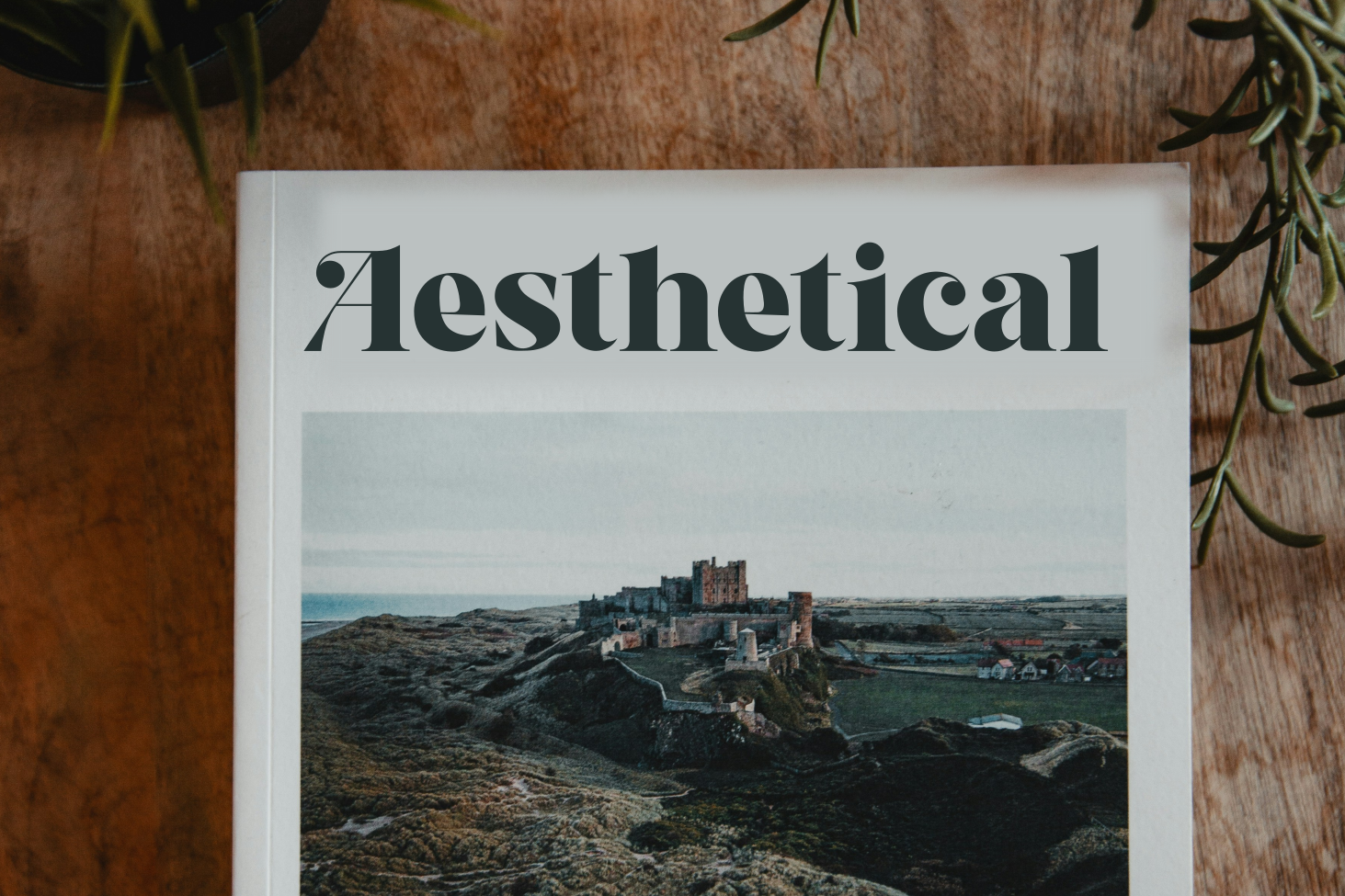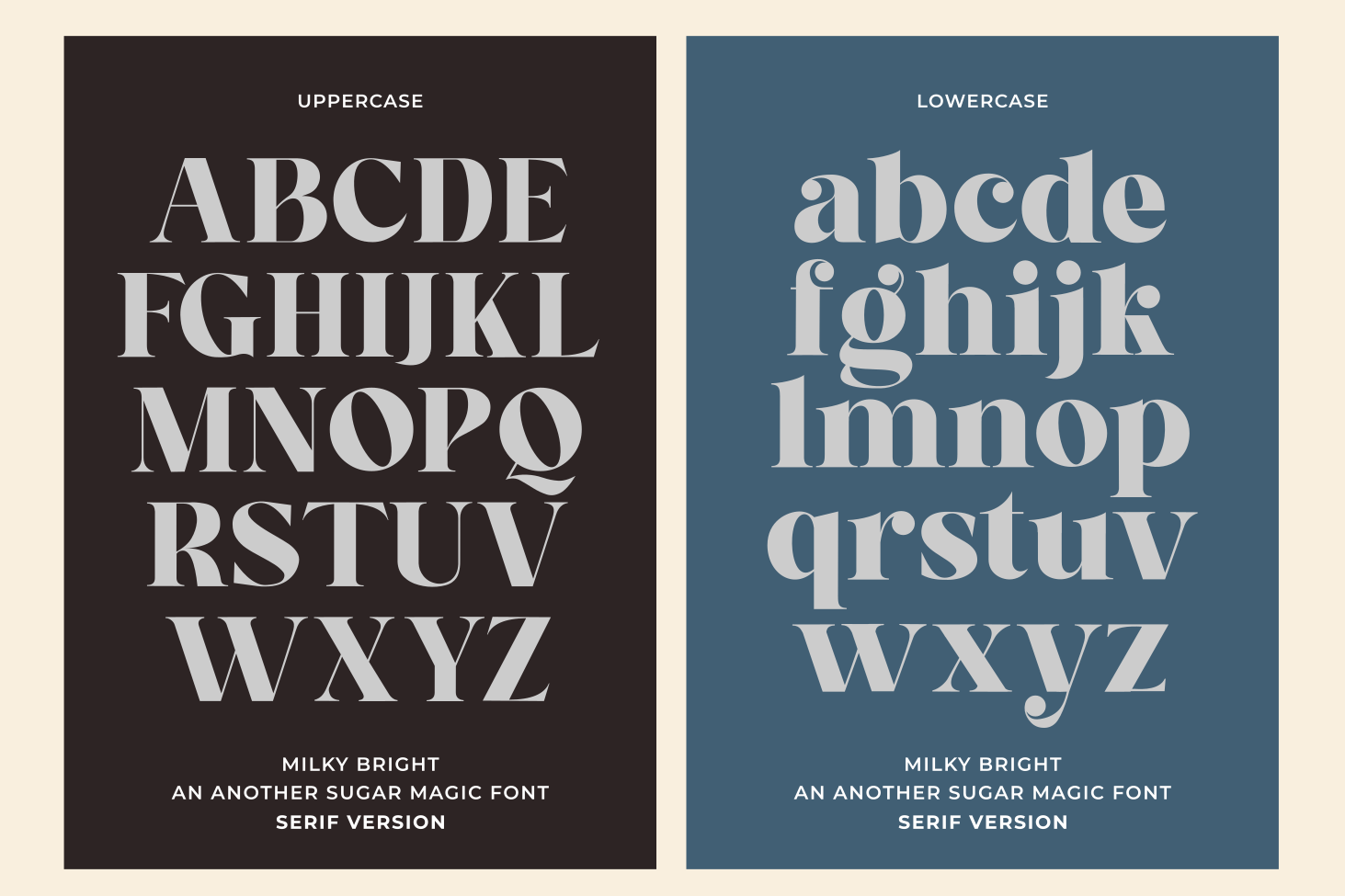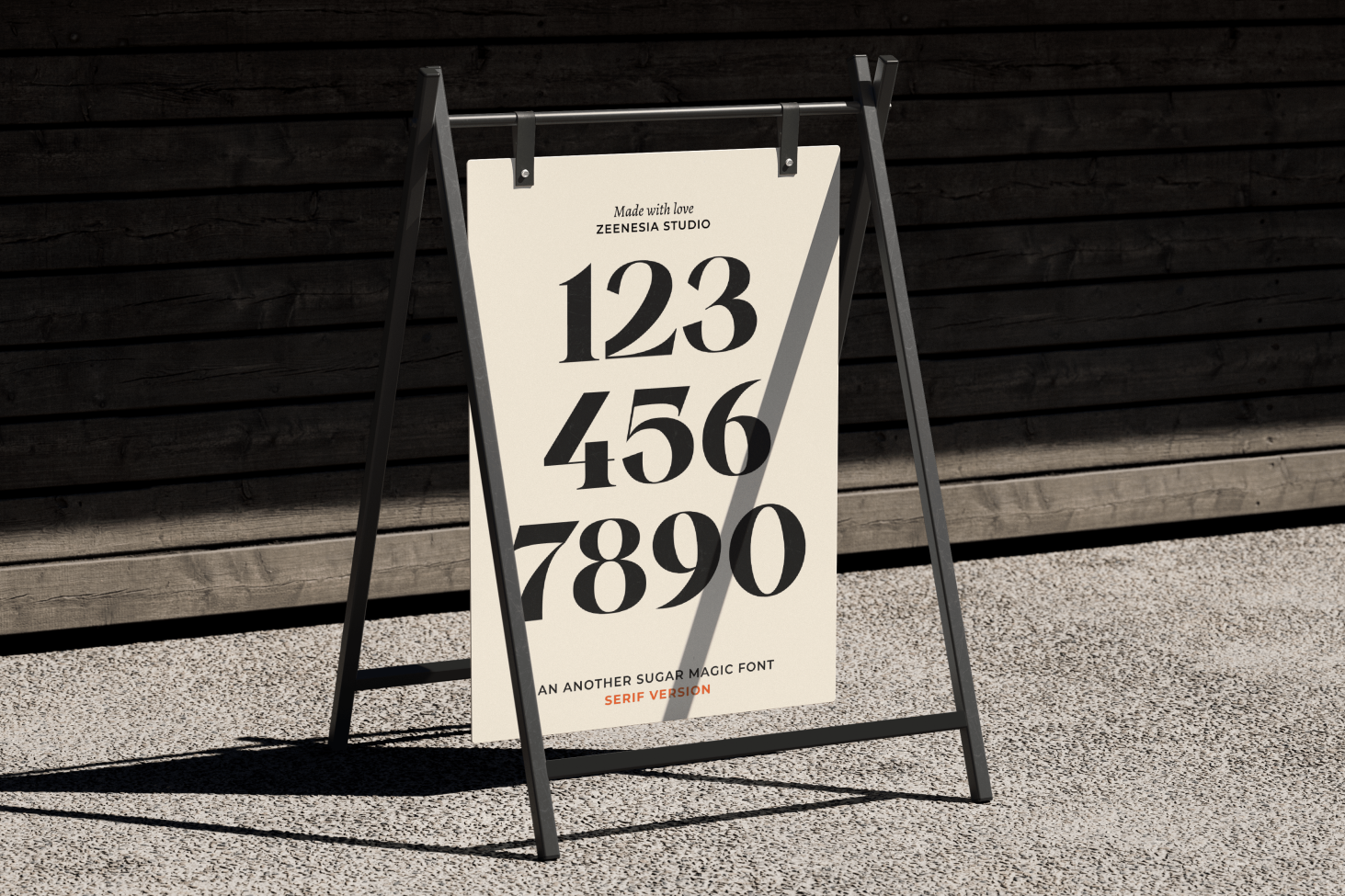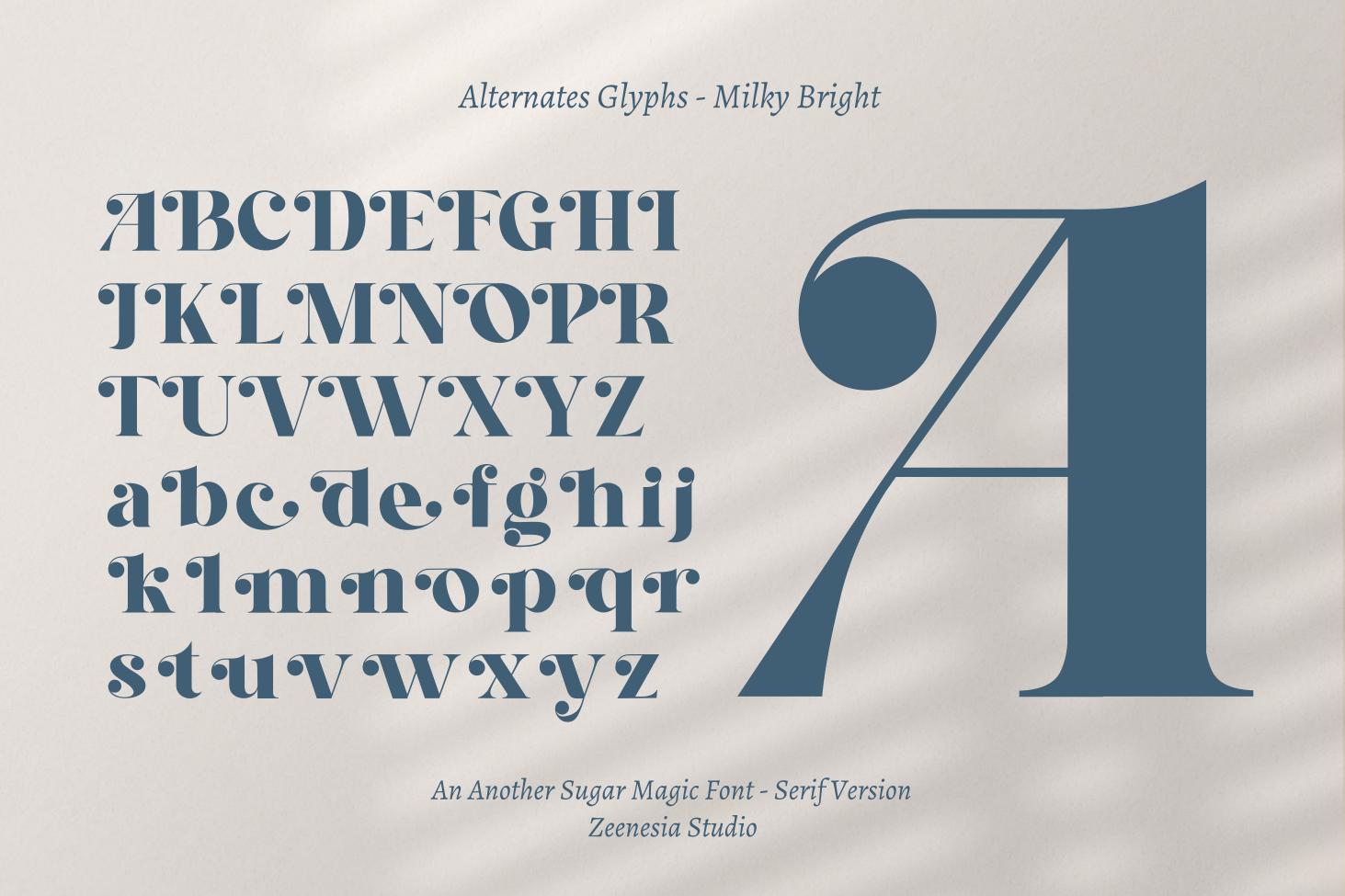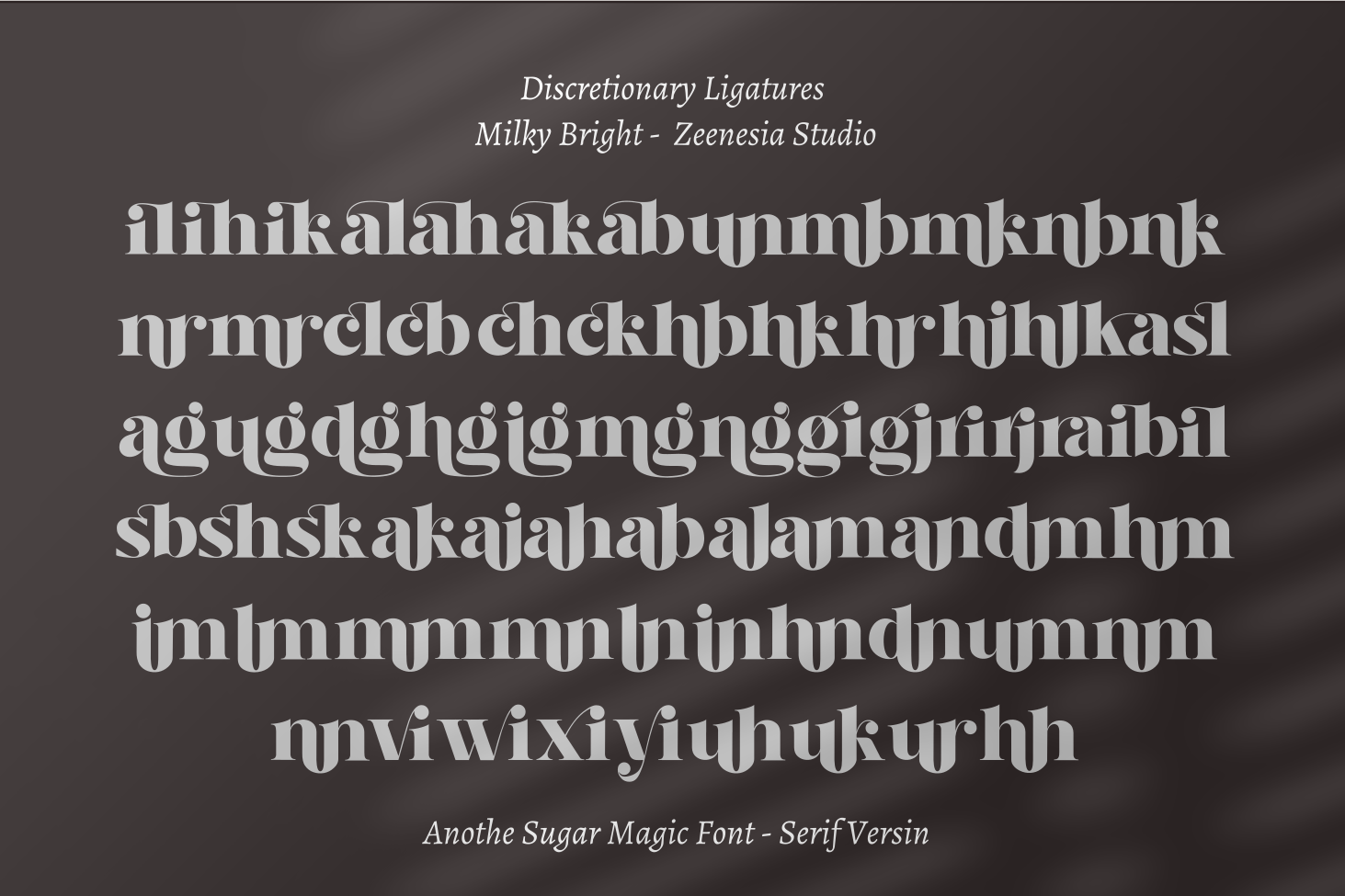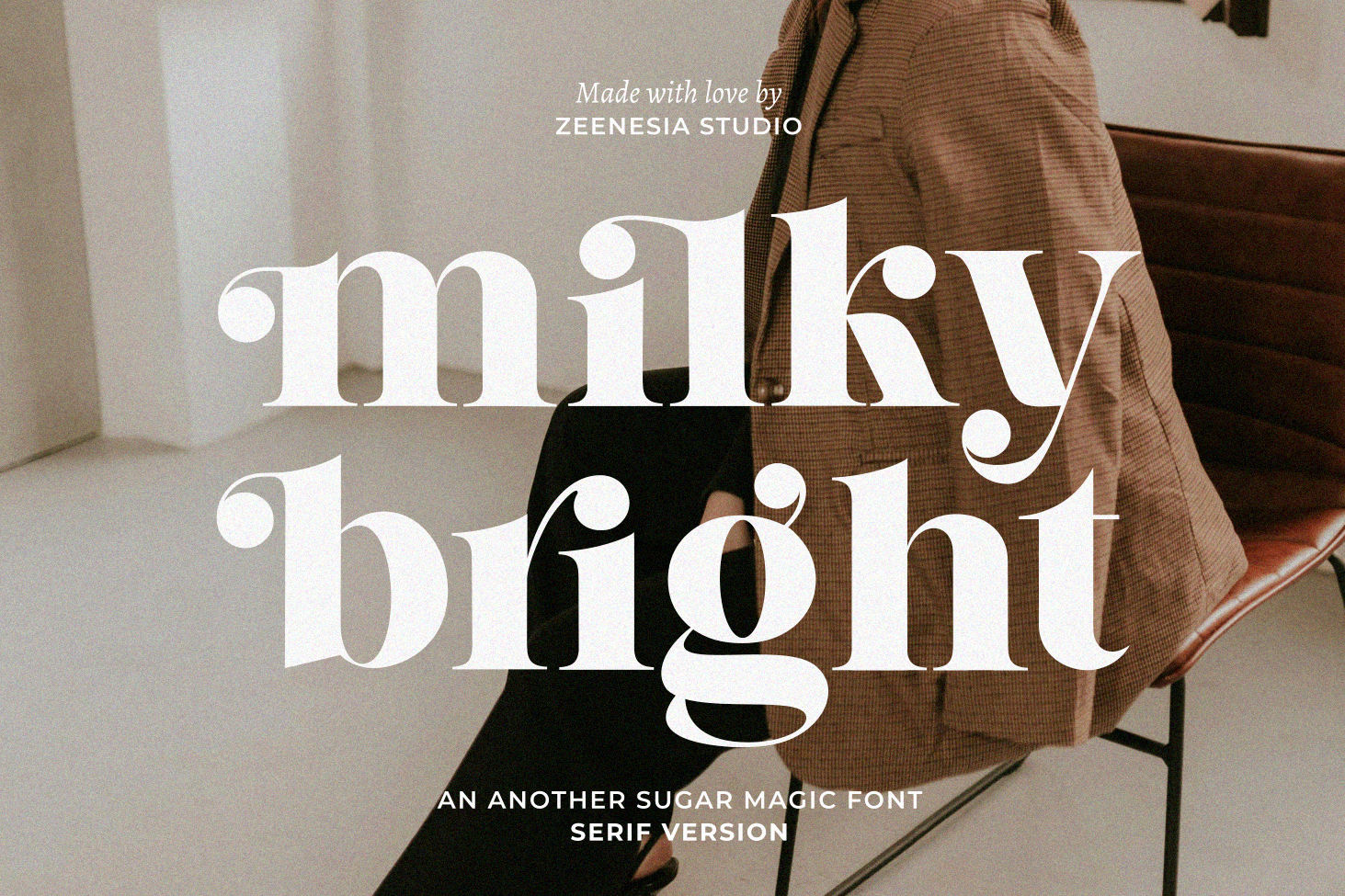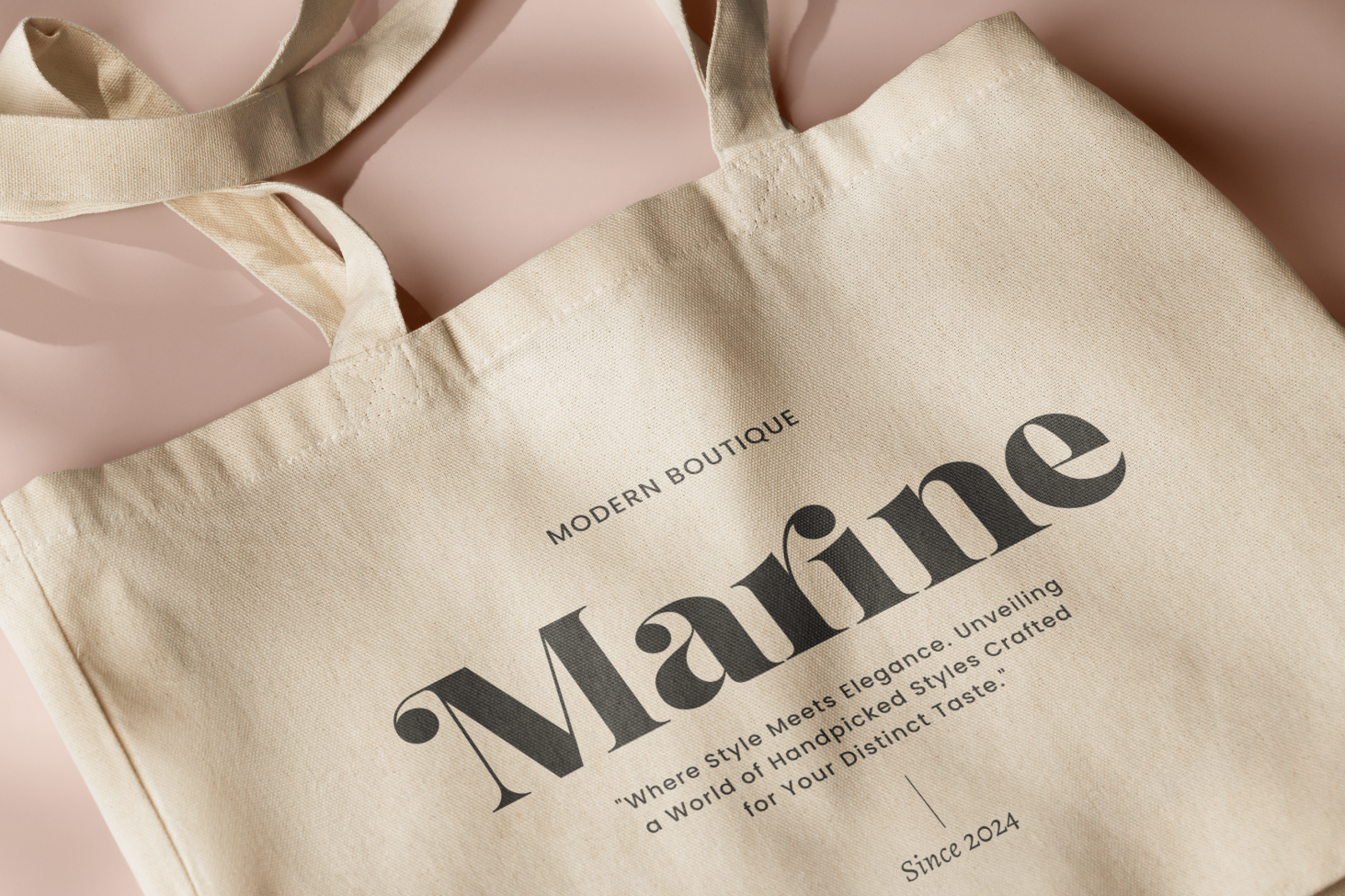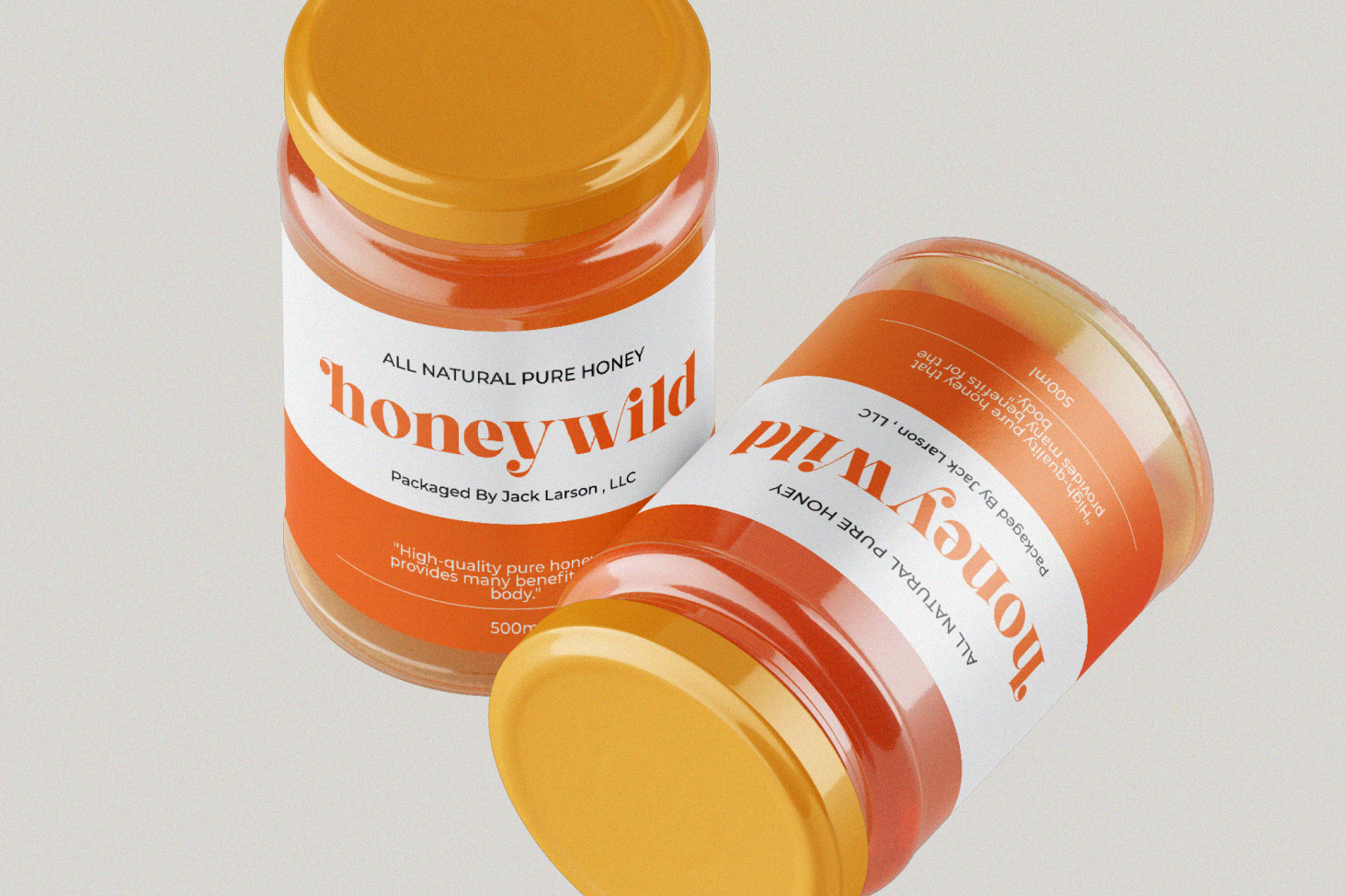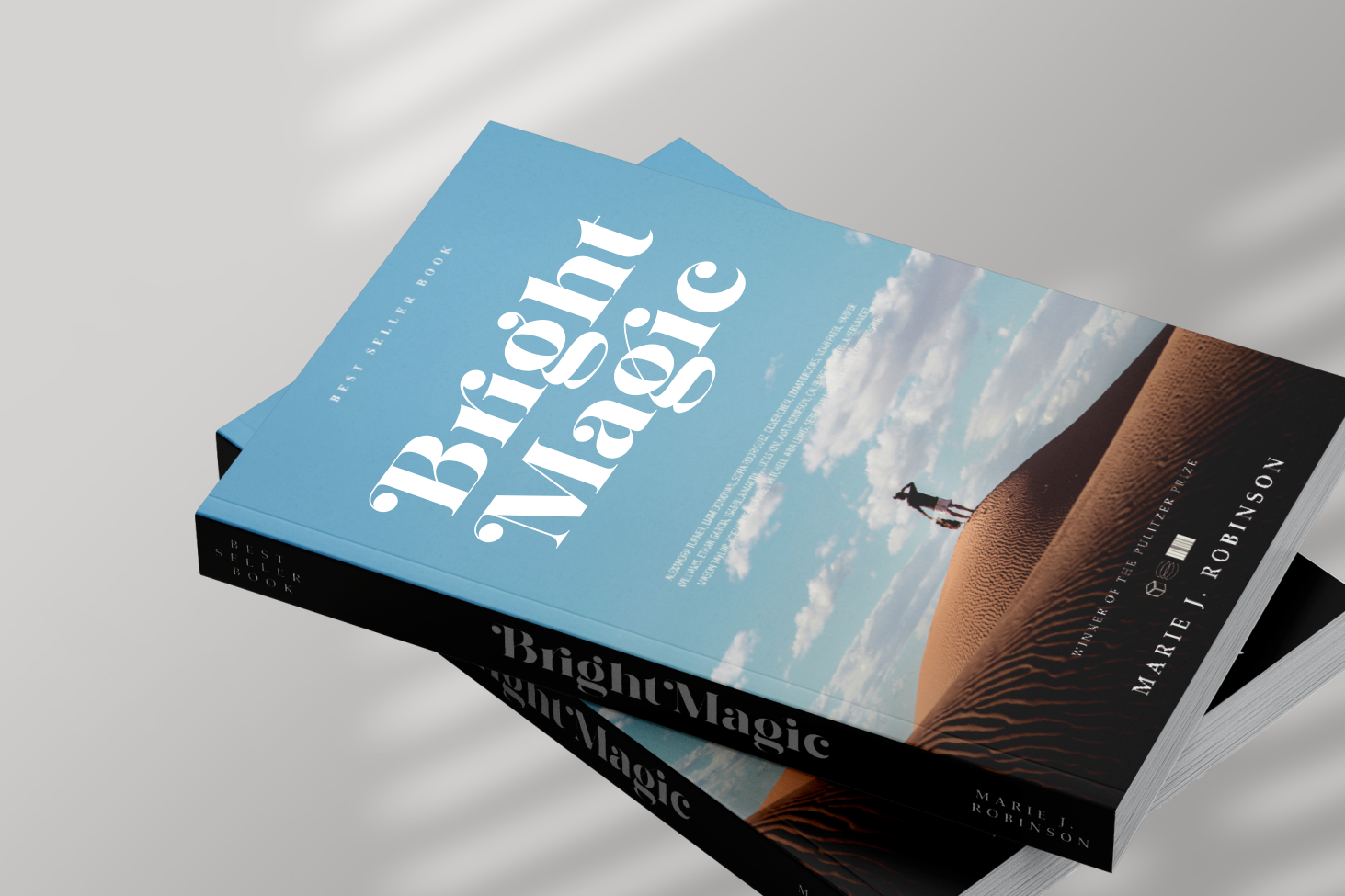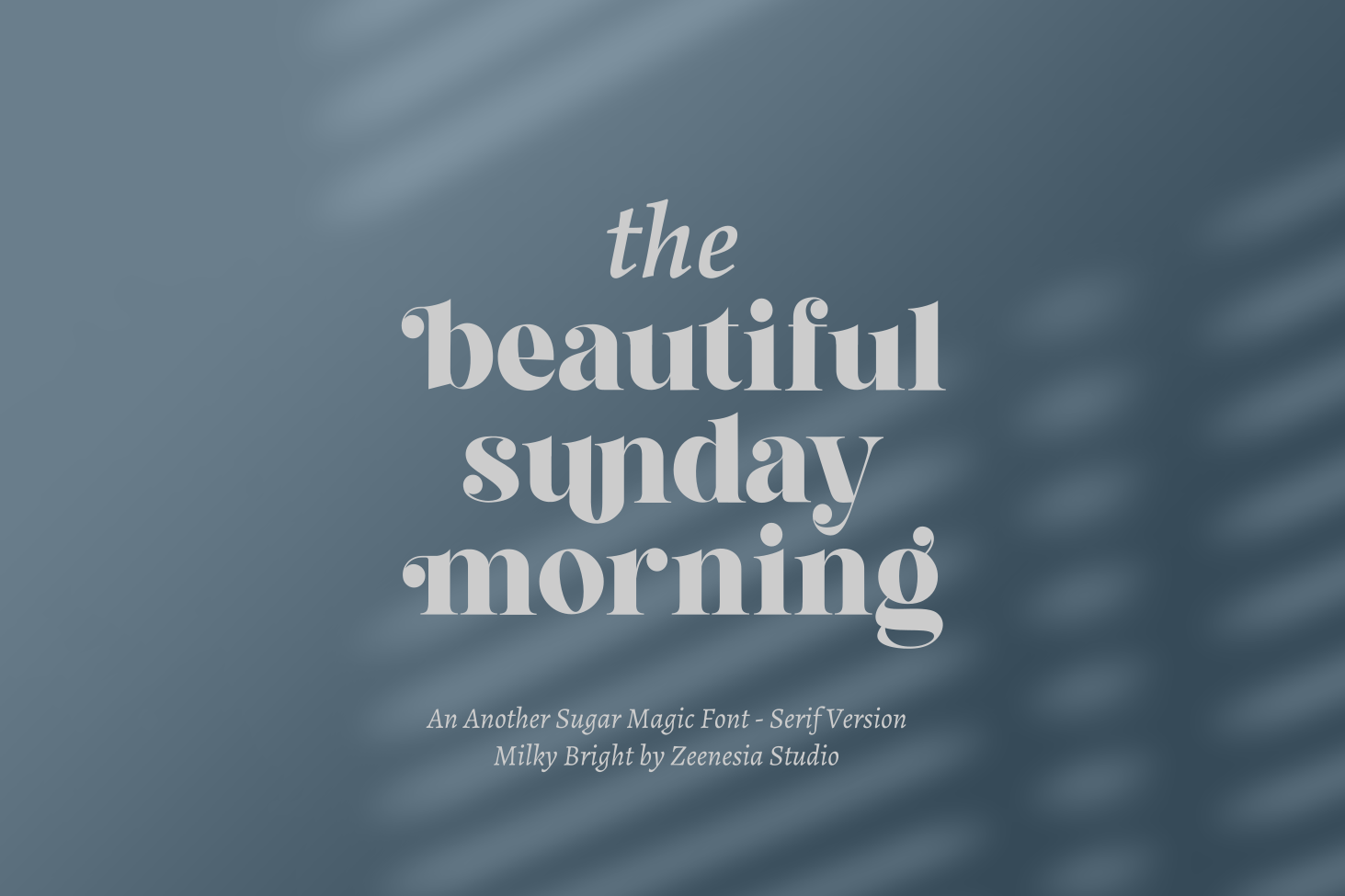
Milky Bright
Milky Bright created by zeenesia is a charming serif font that brings a perfect blend of elegance and playful sophistication. Inspired by the whimsical style of its sibling font, Sugar Magic, Milky Bright adds a classic twist with its graceful serifs and refined details. It is perfect for creating captivating headlines, stylish logos, and eye-catching designs, while maintaining a sense of warmth and approachability. Whether you're working on a modern project or something more traditional, Milky Bright will bring a bright, timeless appeal to your typography.